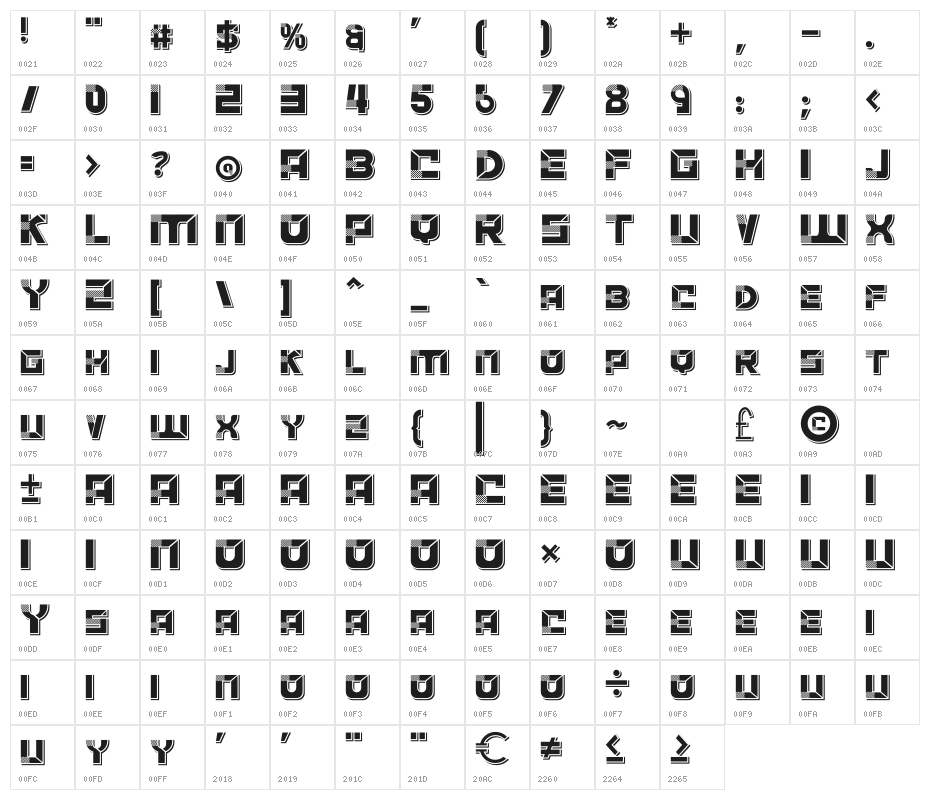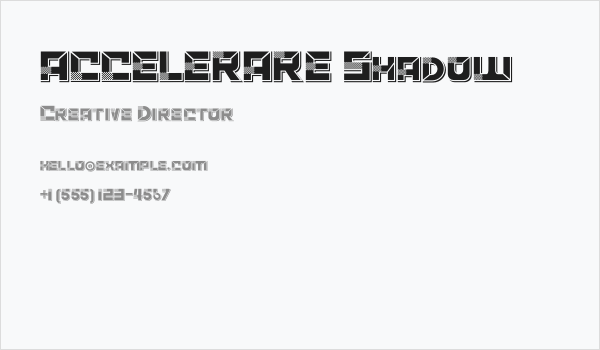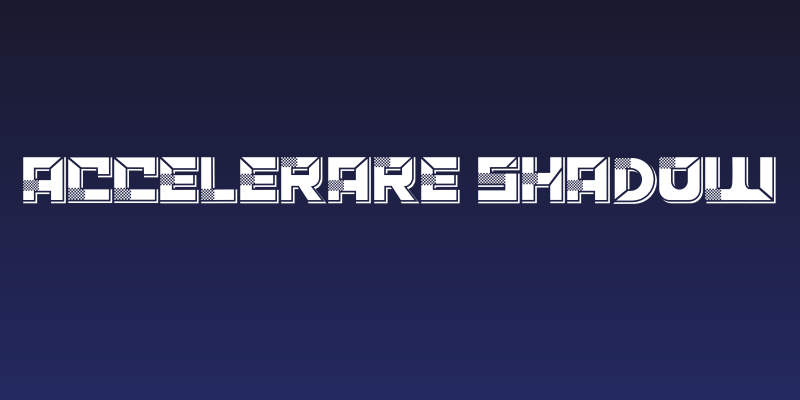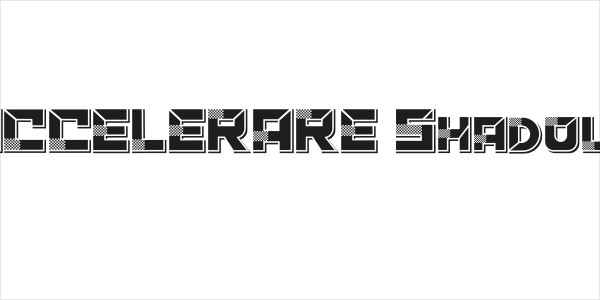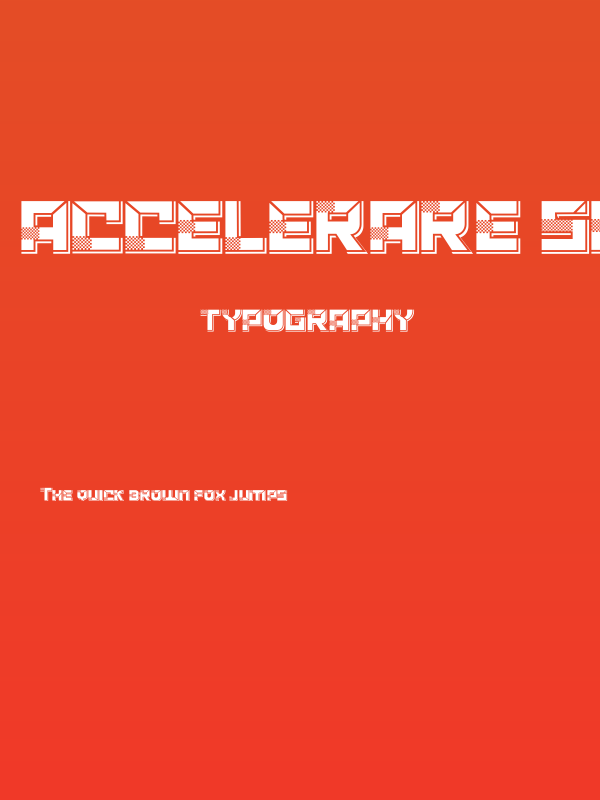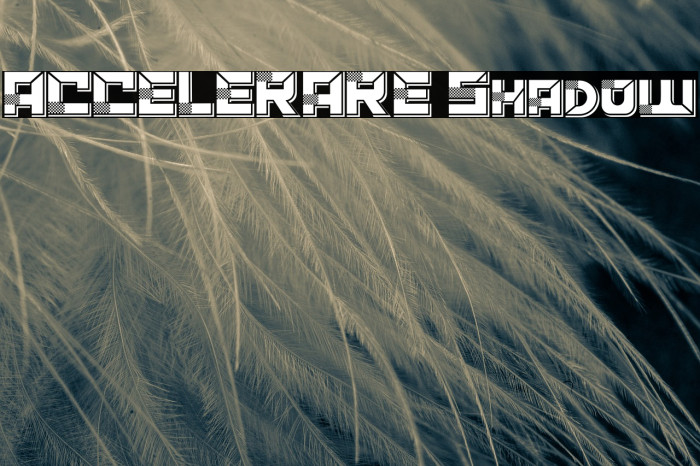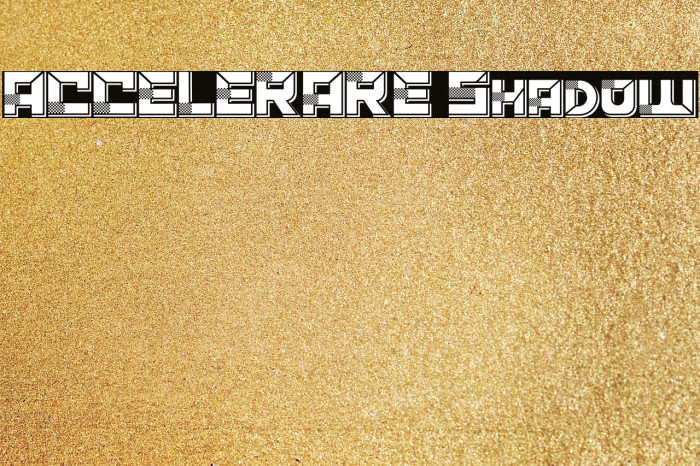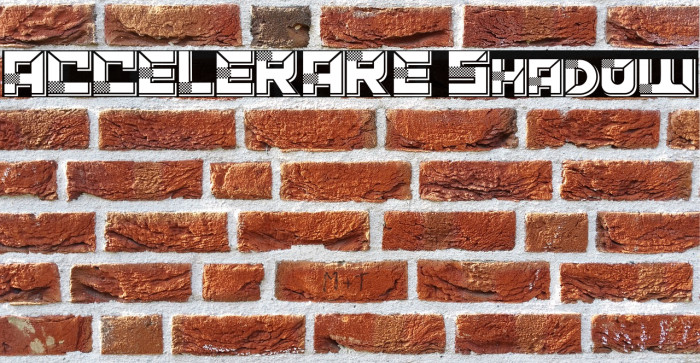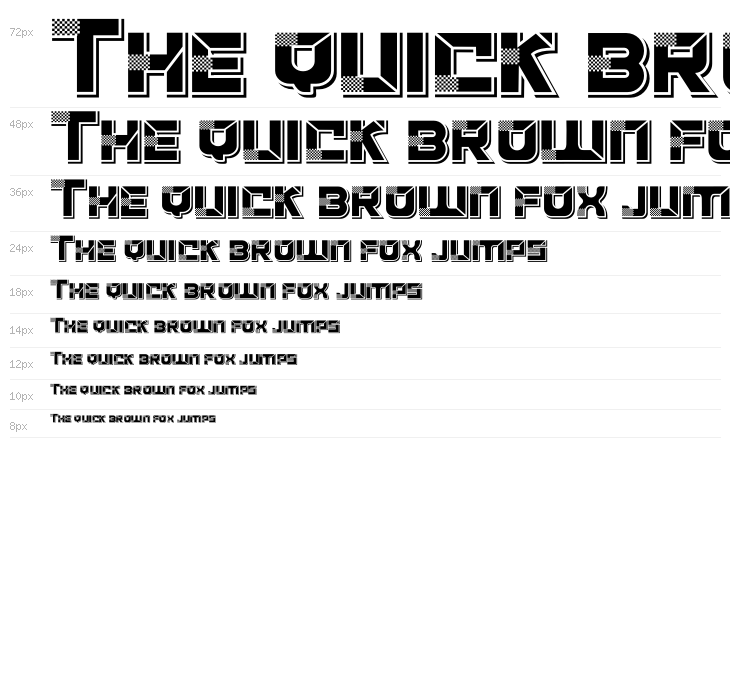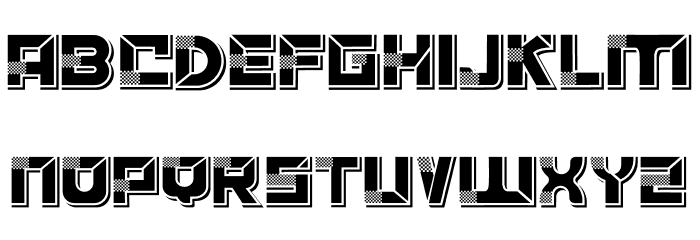
ACCELERARE Shadow Font
ACCELERARE Shadow Description
This font features a bold, geometric design with a distinct shadow effect that gives it a three-dimensional appearance. The characters are constructed with sharp angles and clean lines, creating a modern and dynamic look. The shadowing adds depth and a sense of movement, making it stand out in any design. The use of contrasting colors enhances its visual impact, while the consistent thickness of the strokes maintains readability. This font is ideal for projects that require a strong, attention-grabbing typeface with a contemporary edge.
| Proposed Projects | Ideal for posters, headlines, logos, and any design needing a striking, modern typeface. |